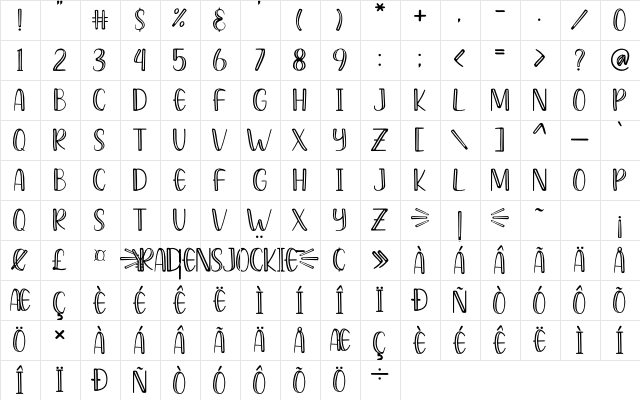
Radens Jockie Regular Free Font
Radens Jockie Regular
Design Context for Radens Jockie
Radens Jockie is a composed and adaptable typeface that performs quietly and consistently across a wide range of design contexts.